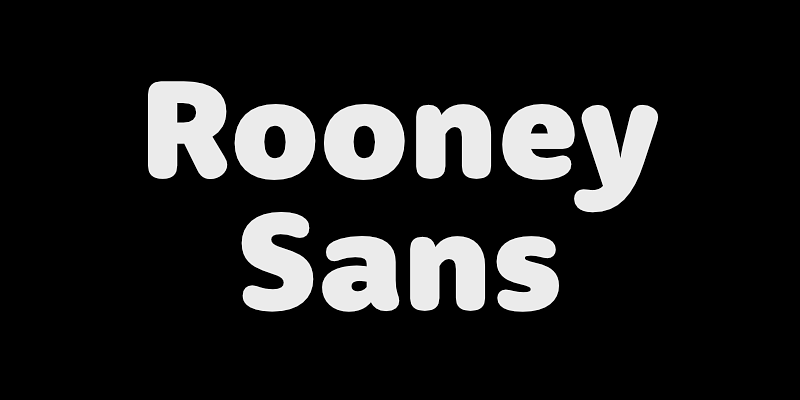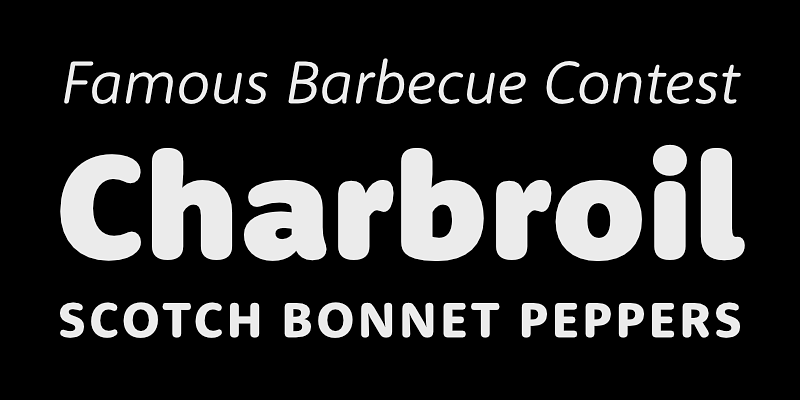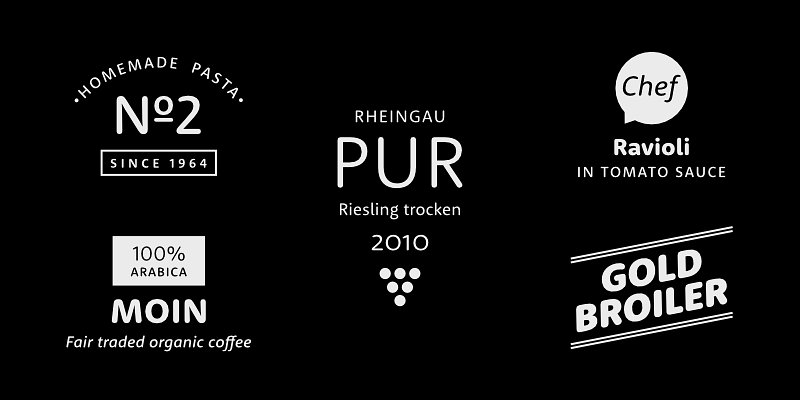
Rooney Sans has softly rounded terminals, thoughtfully applied to classical sans-serif proportions. It is suitable for branding and packaging design and gives long texts a warm and inviting feel.